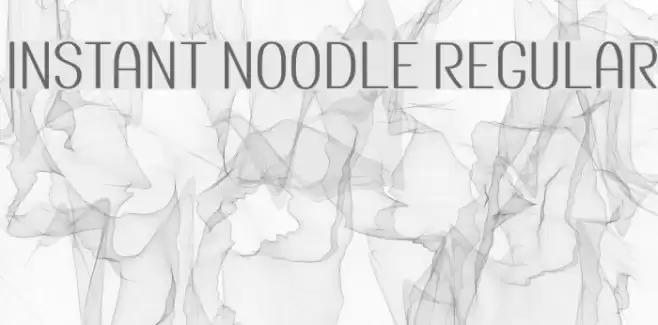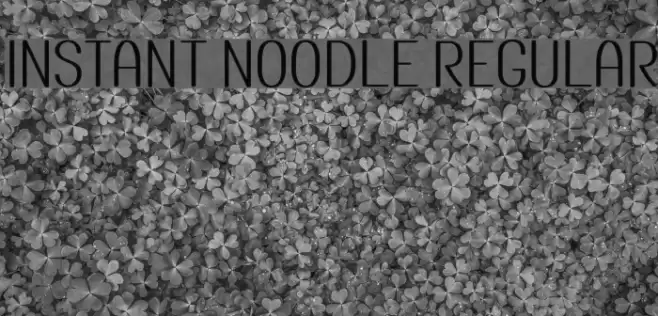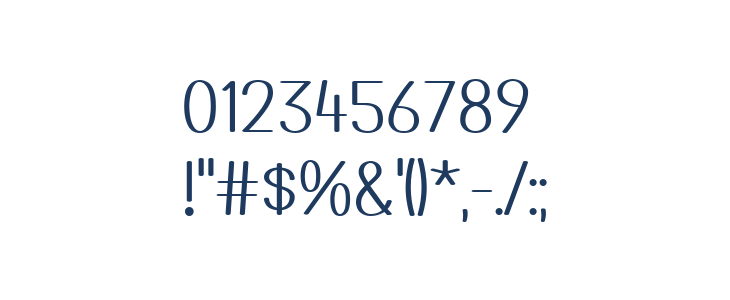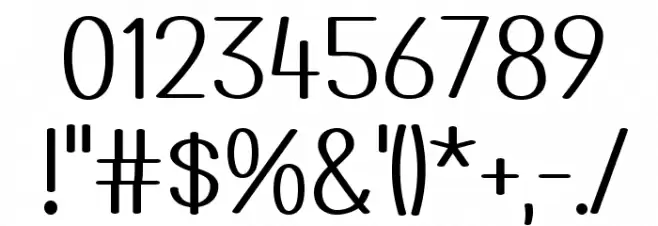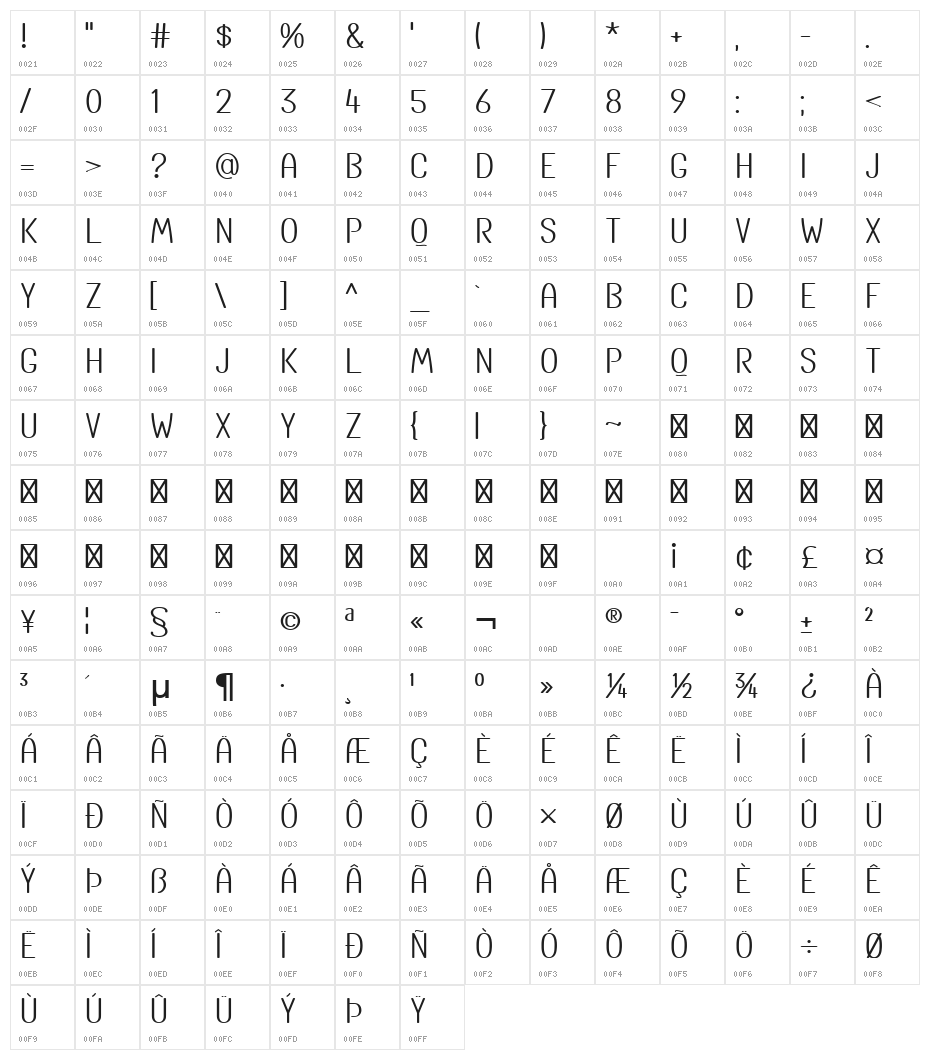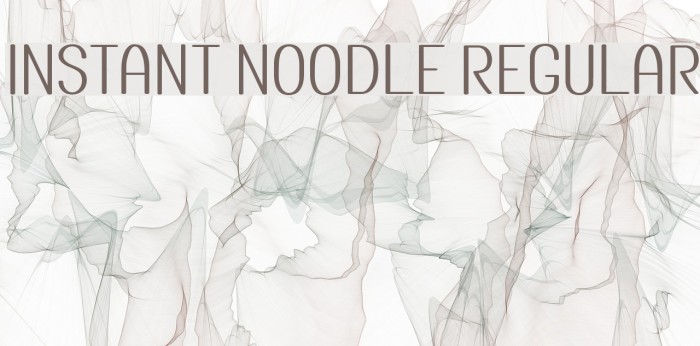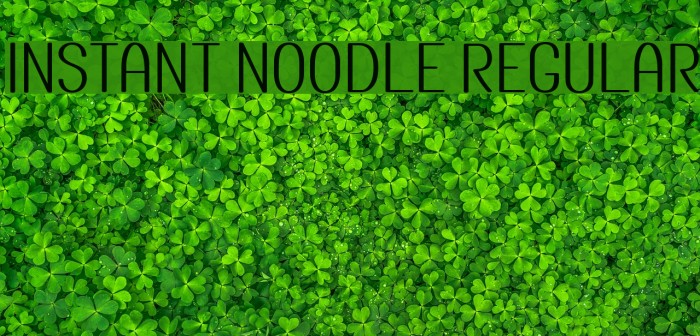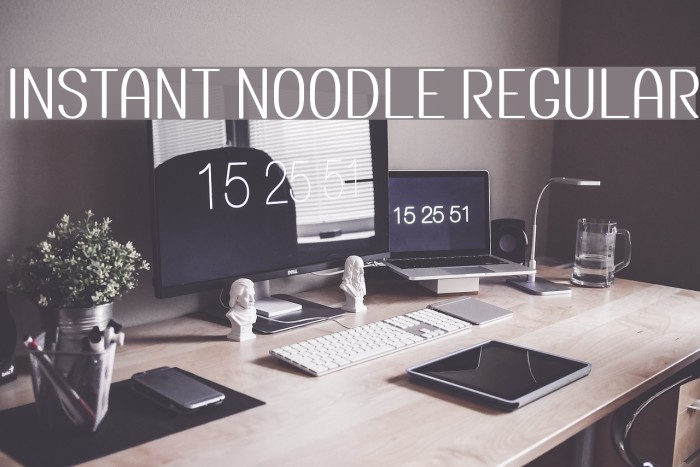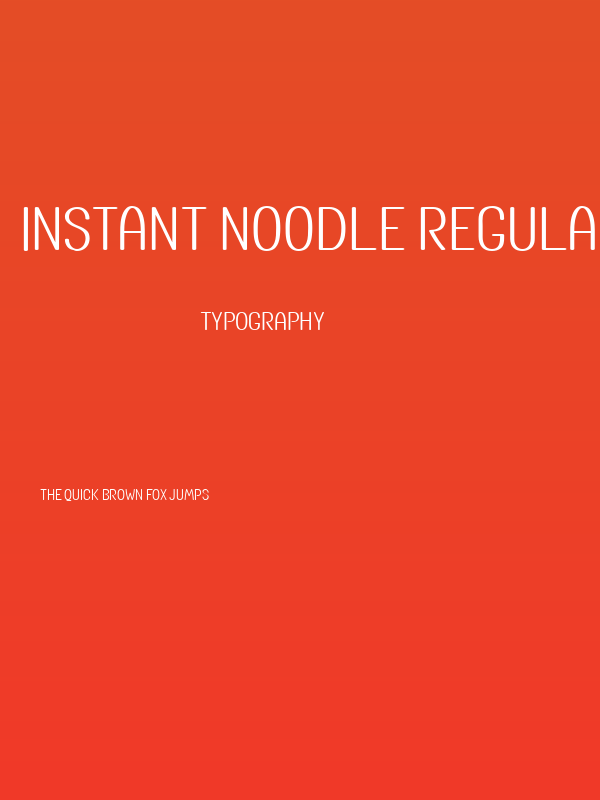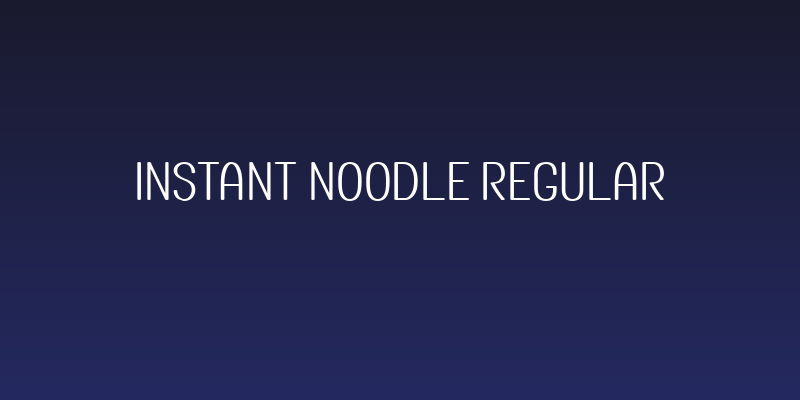
Instant Noodle Regular Font
Instant Noodle Regular Description
This font features a clean and modern sans-serif style with rounded edges that give it a friendly and approachable appearance. The characters are evenly spaced, providing a balanced and harmonious look. The uppercase and lowercase letters maintain consistent proportions, enhancing readability. The numerals are clear and distinct, making them suitable for both digital and print applications. Special characters are well-integrated, ensuring versatility across various design needs. The overall design is sleek and contemporary, making it ideal for a wide range of projects.
A modern, rounded sans-serif font with balanced spacing and clear readability from Uncategorized fonts.
- Proposed Projects: Ideal for branding, web design, product packaging, and editorial layouts.